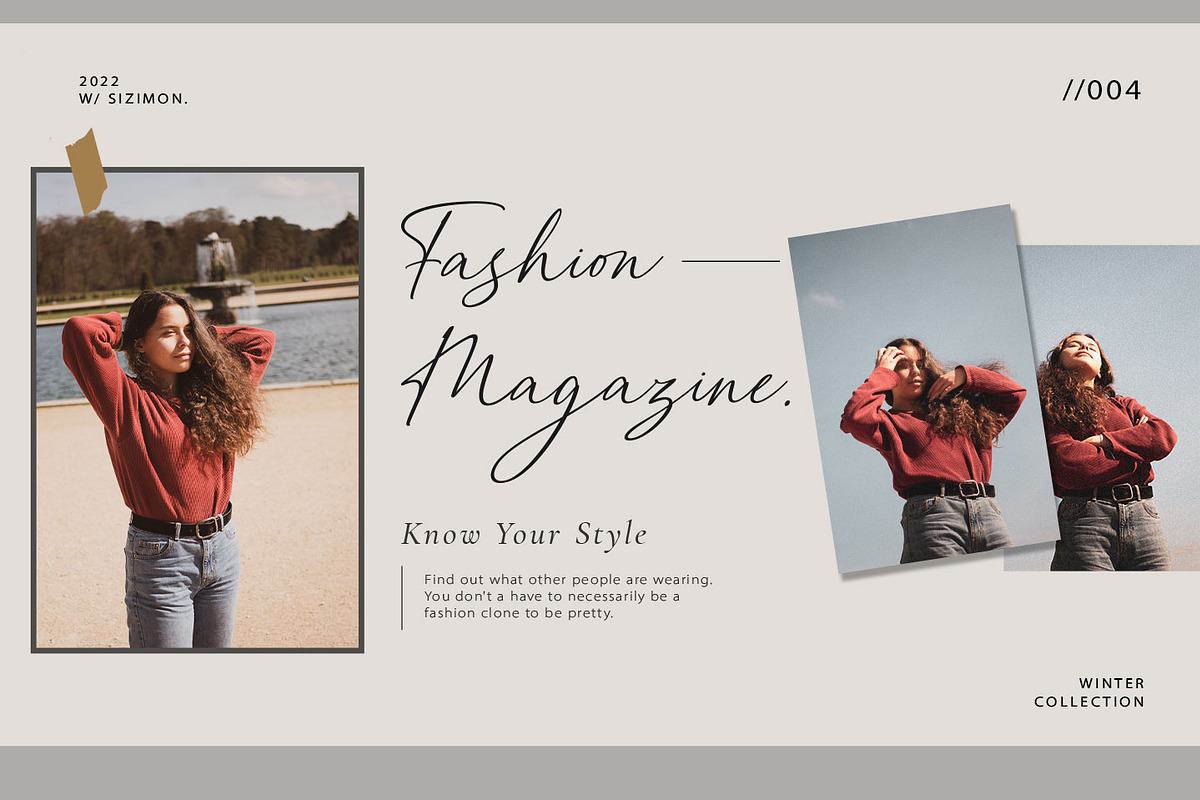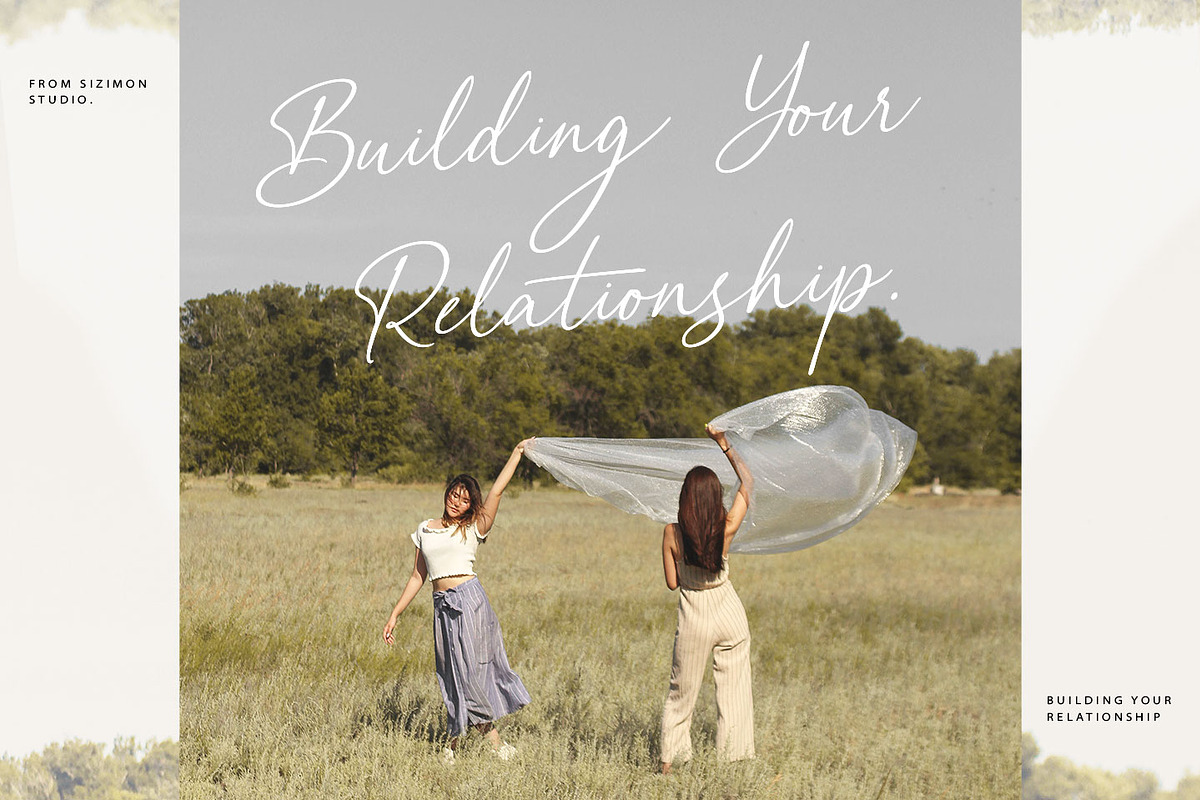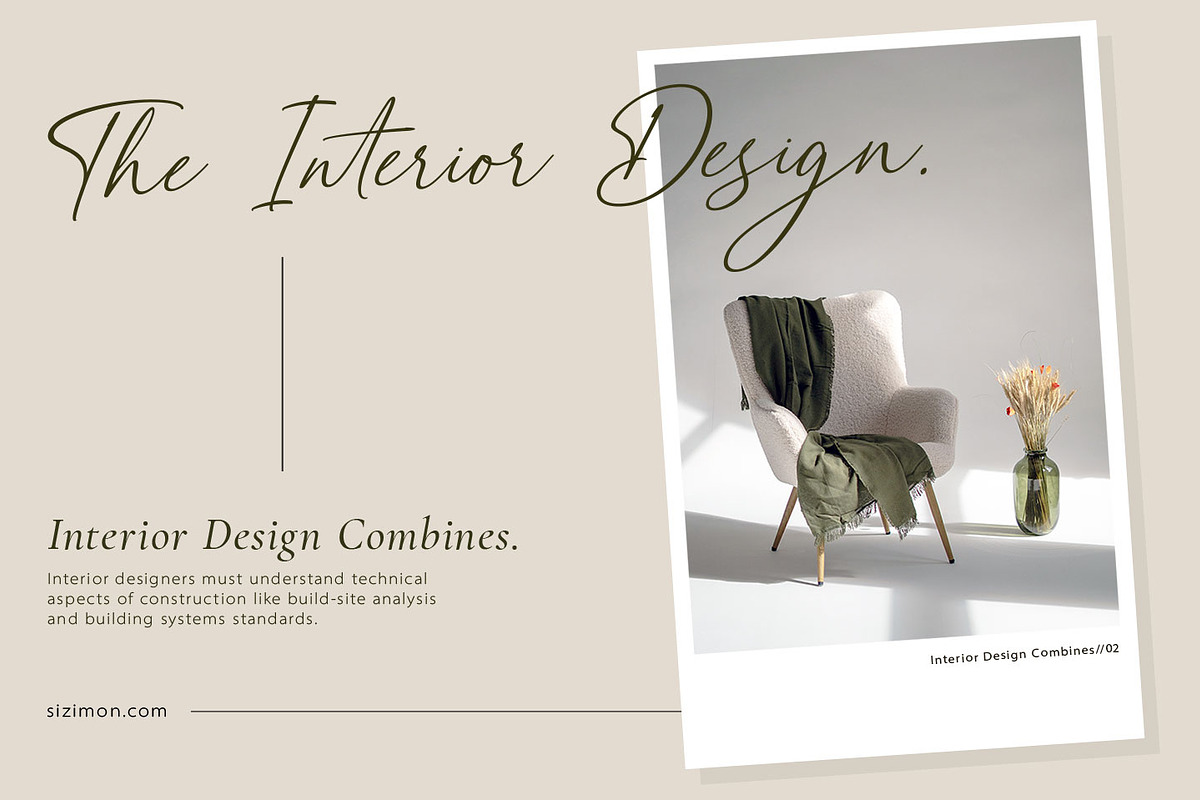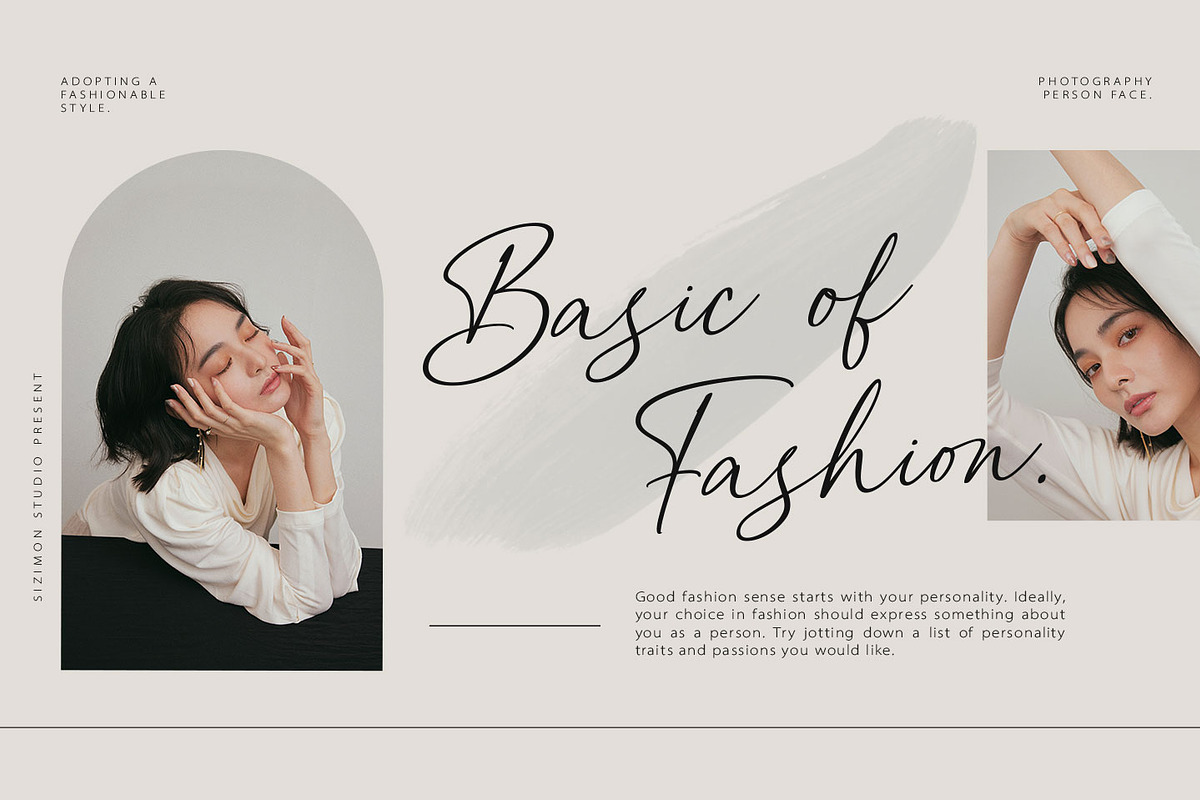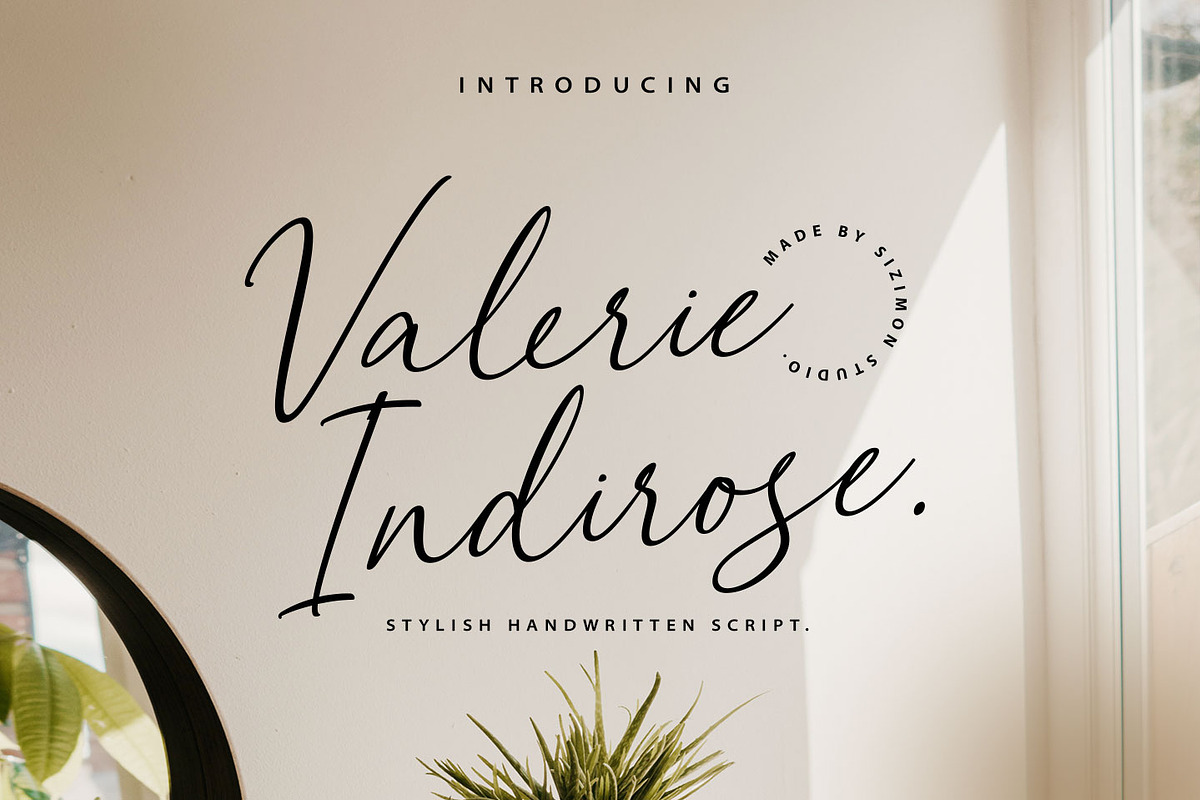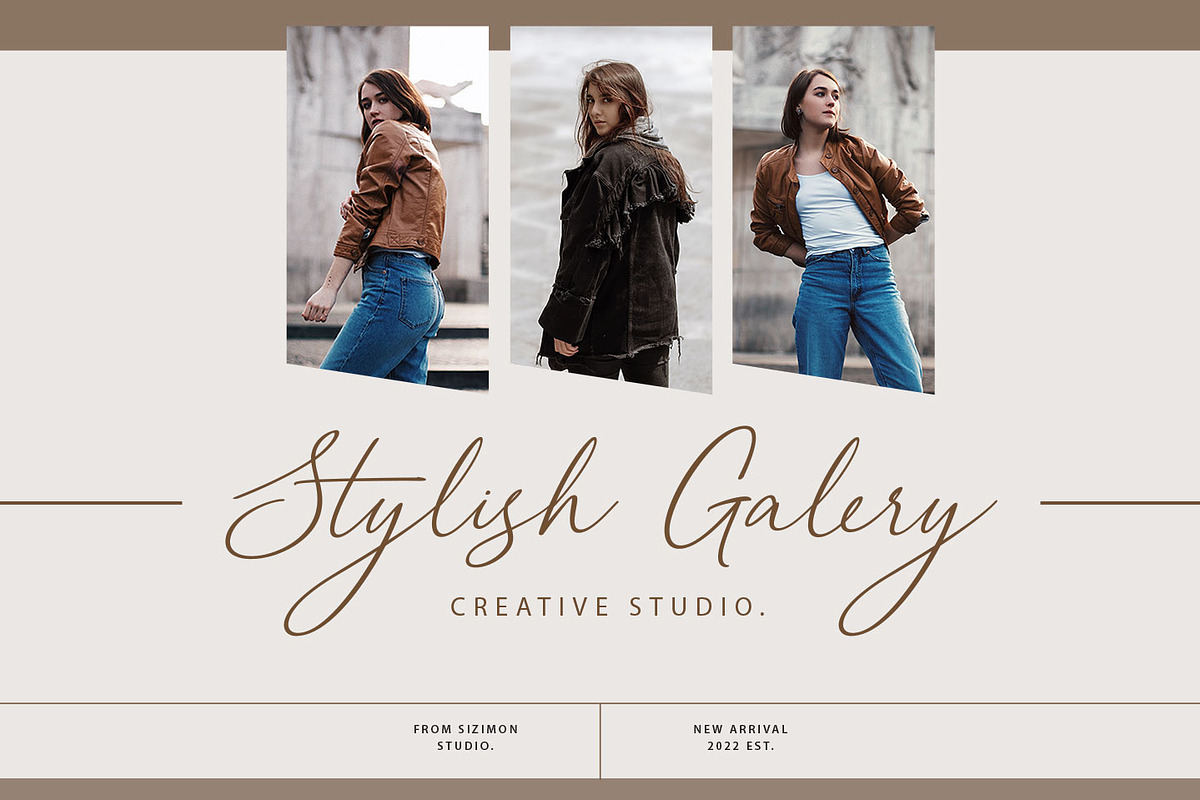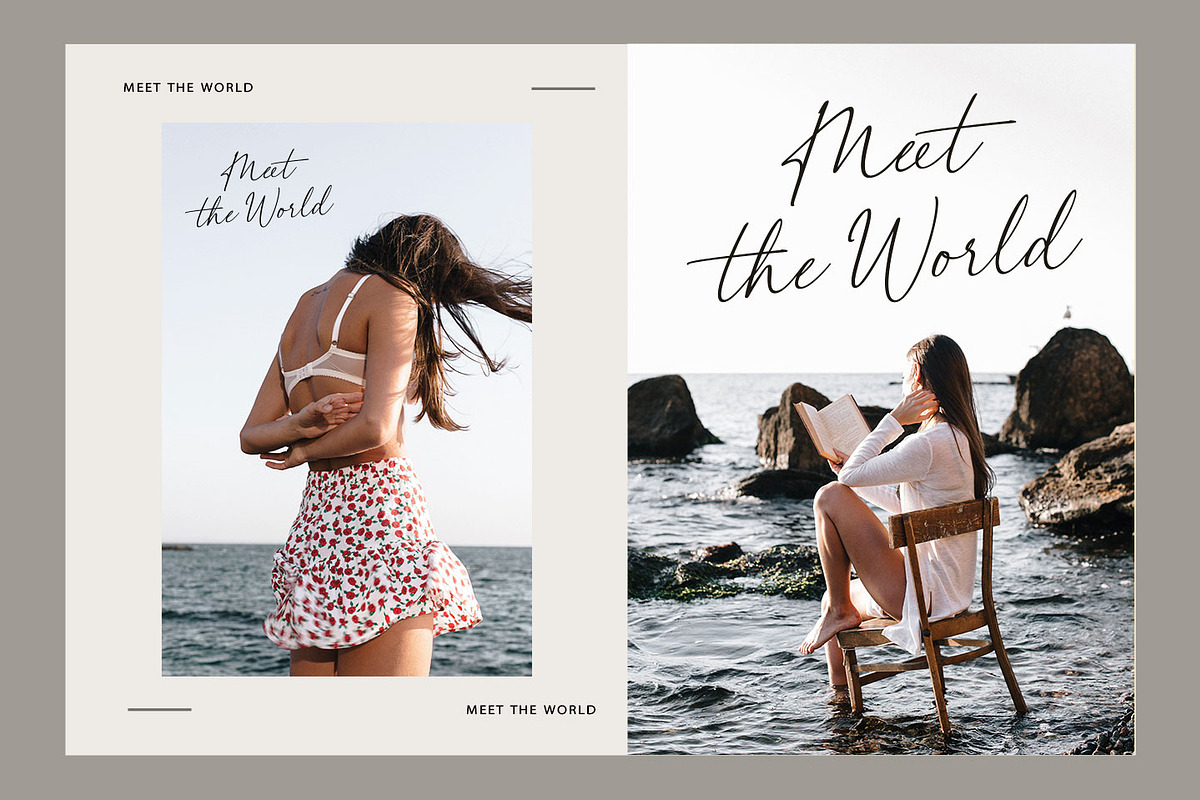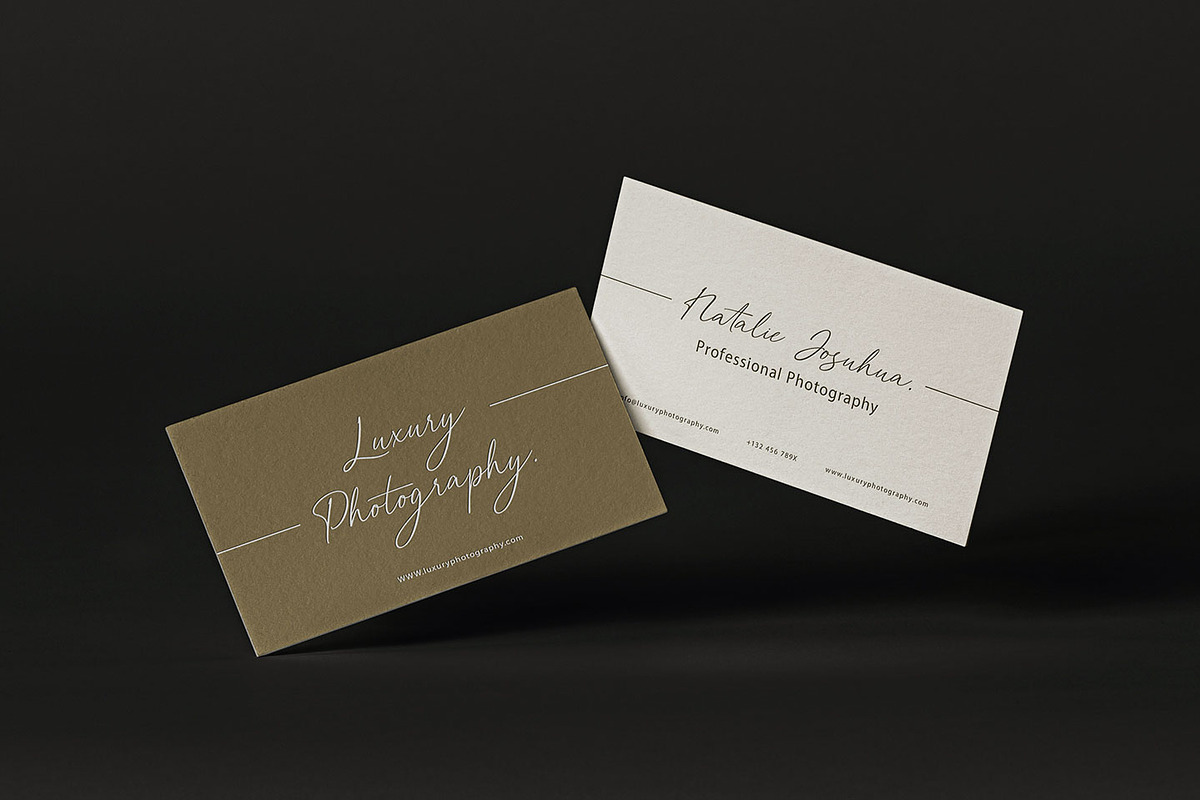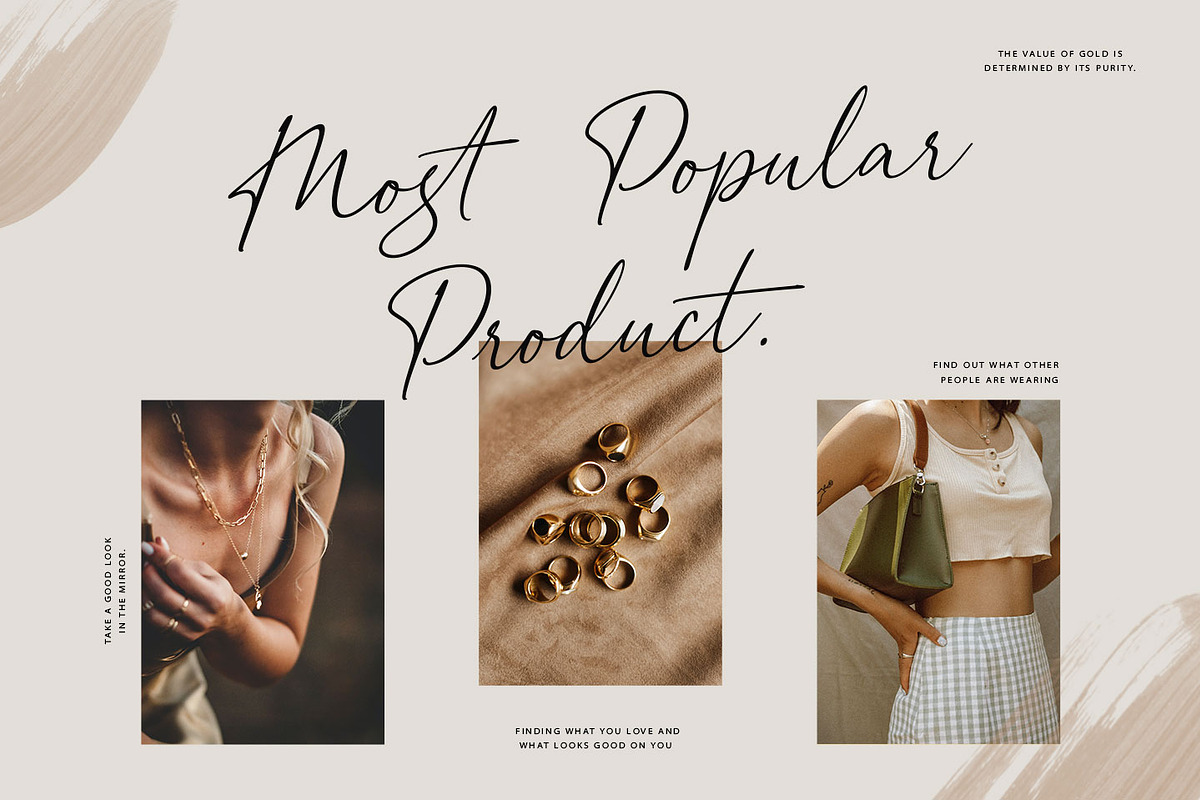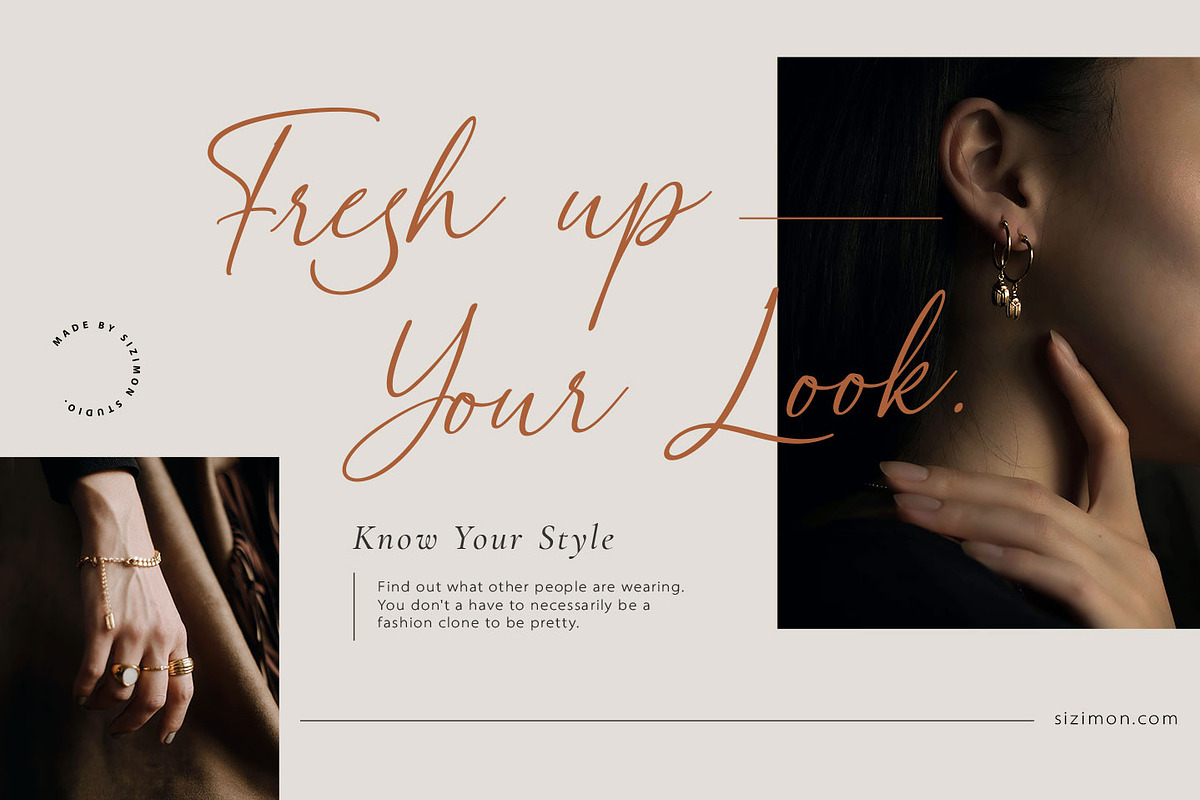
Valerie Indirose
The font is called "Valerie Indirose", it is font with fashionable themes. Script font contains 2 set alternates and some ligatures. The Valerie Indirose matches apply in some designs such as the logotype, quotes, wedding invitation, business card, packaging, branding, and more custom design.
Valerie Indirose includes :
- Uppercase, lowercase, numeral, symbol and punctuation, alternates (ss01-ss02), ligature in script font
- All-caps, numeral, symbol and punctuation in serif font